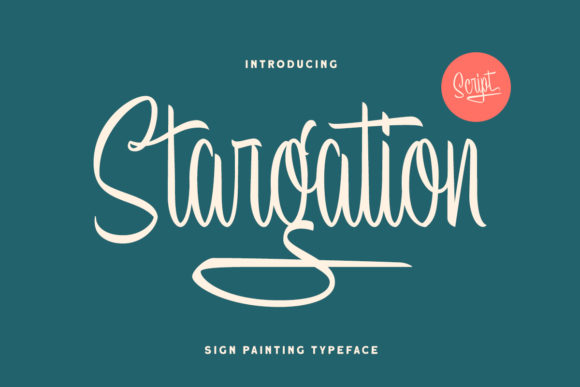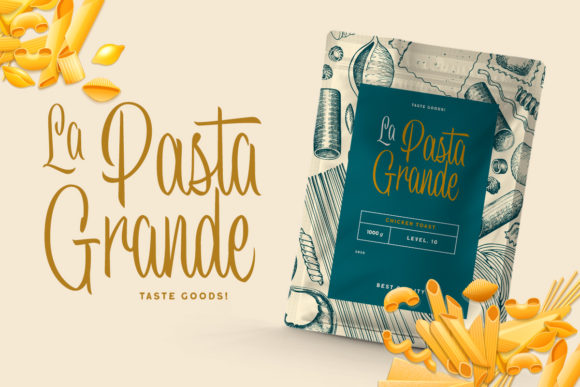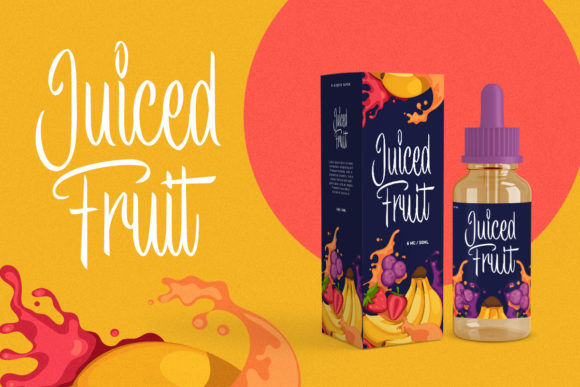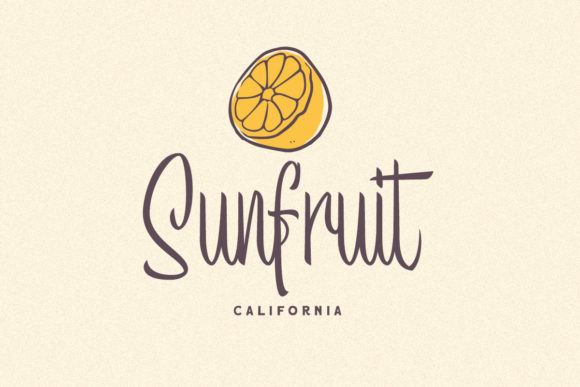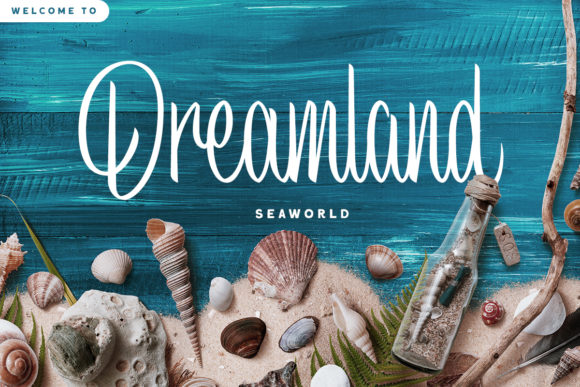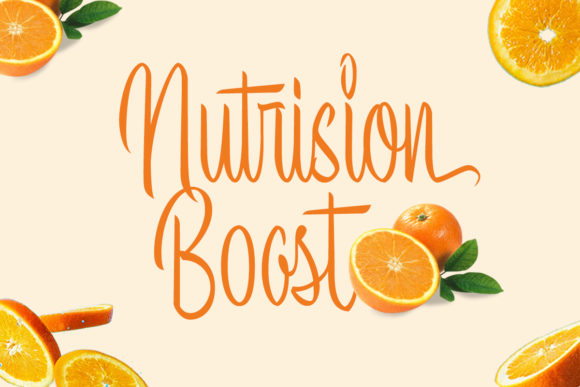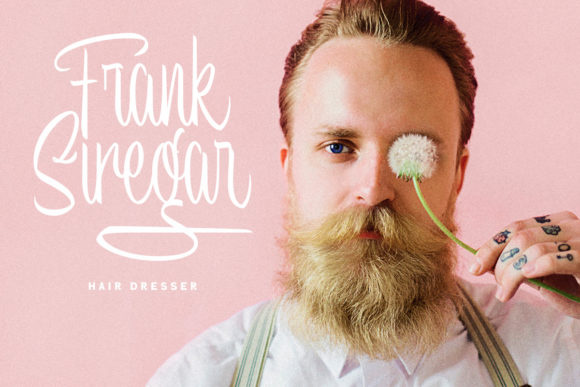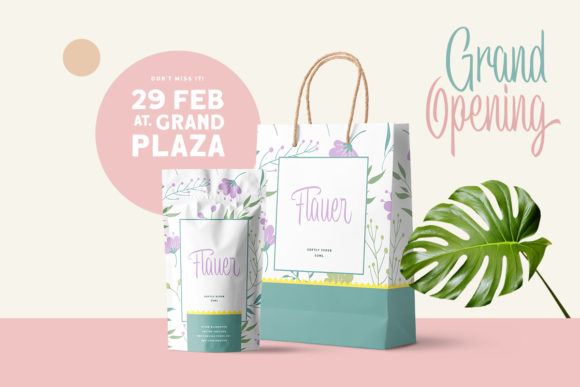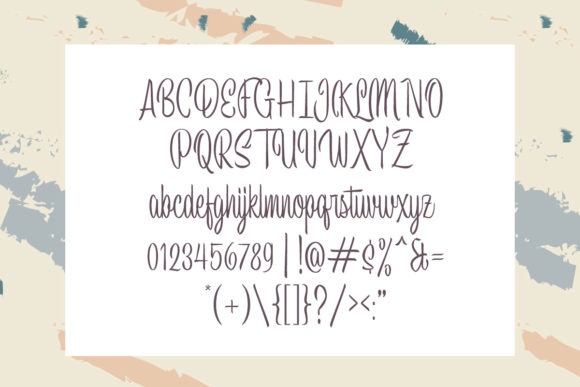
Stargation Font
About Stargation Font
Stargation is a magical handwritten font carefully created with a touch of elegance. It features an incredibly classic style, while still keeping a friendly feel. This is the perfect font for making original and outstanding designs.